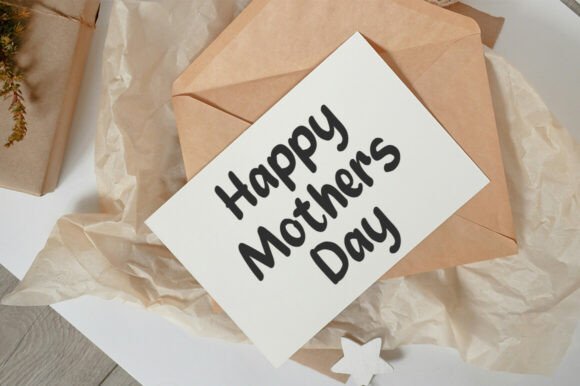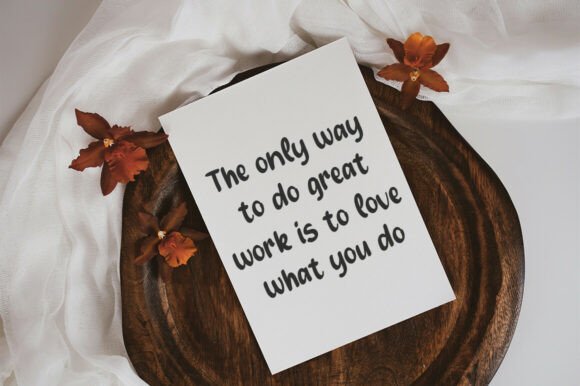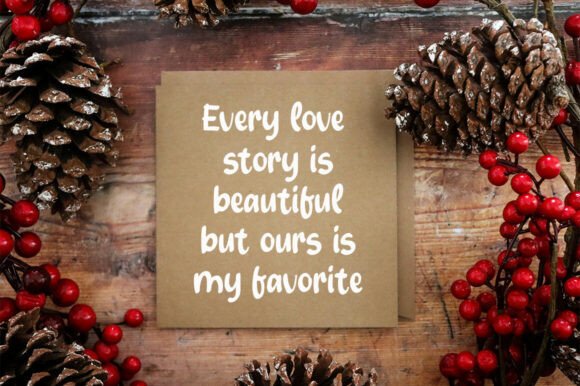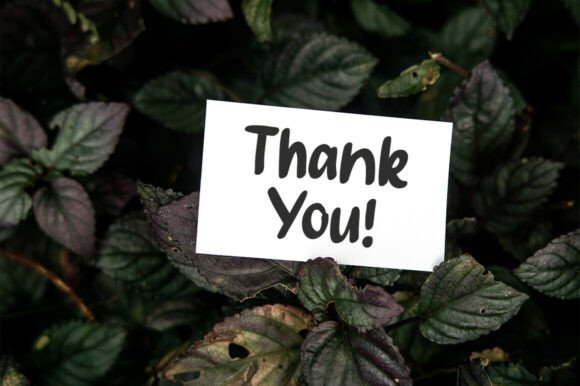
Introducing Camelia Font: Add a Touch of Vibrancy and Personality to Your Designs
In the world of typography, fonts play a crucial role in conveying the tone and aesthetic of a brand or creative project. If you’re looking for a typeface that exudes energy, elegance, and a dash of playfulness, look no further than Camelia Modern Brush Font. This stunning font is designed to bring a human touch to your designs, making it perfect for creatives, designers, and crafters seeking to add a unique flair to their work.
The Characteristics of Camelia Font
Camelia Modern Brush Font is defined by its fluid, rhythmic movement and organic baseline, which captures the casual elegance of quick-drying brushwork. The font’s dynamic strokes and subtle imperfections evoke a sense of handcrafted artistry, making it an excellent choice for projects that require an approachable yet stylish vibe. Whether you’re designing social media graphics, crafting artisanal food labels, or creating contemporary apparel branding, Camelia font is the premier choice for adding a touch of personality to your work.
Expressive and Versatile: The Many Uses of Camelia Font
One of the standout features of Camelia font is its versatility. This modern brush font can be used in a wide range of creative projects, from:
- Expressive social media graphics that demand attention
- Artisanal food labels that require a touch of elegance
- Contemporary apparel branding that needs a stylish edge
- Handmade crafts and DIY projects that showcase a personal touch
Camelia font’s adaptability and charm make it an excellent addition to any designer’s toolkit.
Enhancing the Playful Nature of Camelia Font
To truly make the most of Camelia font, it’s essential to pair it with design elements that complement its playful and artisanal roots. Here are a few expert tips to enhance the font’s personality:
- Bright and saturated colors: Combine Camelia font with vibrant hues to amplify its energetic and lively vibe.
- Natural textures: Pair the font with organic textures like linen, wood, or paper to reinforce its handcrafted, artisanal feel.
- Creative experimentation: Don’t be afraid to experiment with different font sizes, colors, and styles to create a unique visual composition that showcases Camelia font’s versatility.
Why Designers and Crafters Love Camelia Font
So, what makes Camelia font a favorite among designers and crafters? Here are just a few reasons:
- Unique personality: Camelia font’s distinctive character and playful vibe set it apart from more traditional typefaces.
- Easy to use: With its clean and intuitive design, Camelia font is simple to incorporate into any project, making it accessible to designers of all skill levels.
- Highly versatile: Whether you’re designing for digital or print, Camelia font adapts seamlessly to various mediums and applications.
In conclusion, Camelia Modern Brush Font is an exceptional typeface that injects vibrant energy and a human touch into any creative project. Its fluid, rhythmic movement and organic baseline make it perfect for designers and crafters seeking to add a dash of personality to their work. With its versatility, playfulness, and adaptability, Camelia font is sure to become a staple in any designer’s toolkit. So why wait? Unlock the full potential of Camelia font and bring a touch of elegance, whimsy, and artisanal charm to your designs today!